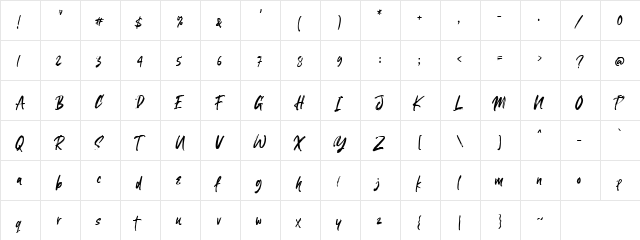
Linebrush Regular
| Foundry | Weape Studio |
| Designer | Wahyu Andi Prasetiyo |
Design Context for Linebrush Typeface
Linebrush flows with the natural rhythm of handwritten lettering, making it ideal for designs that call for warmth and personal expression.